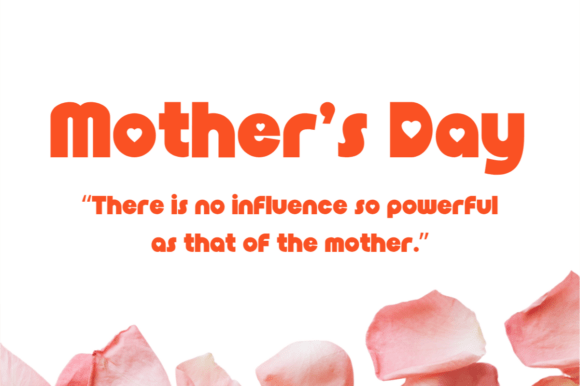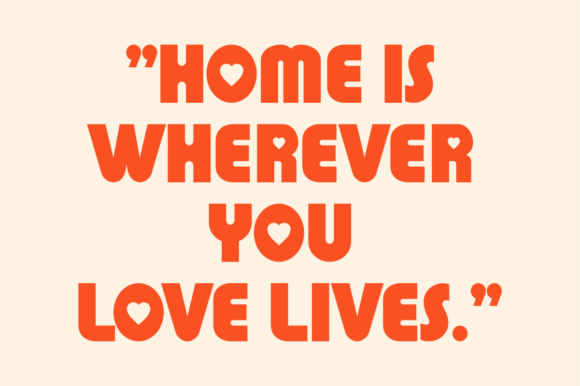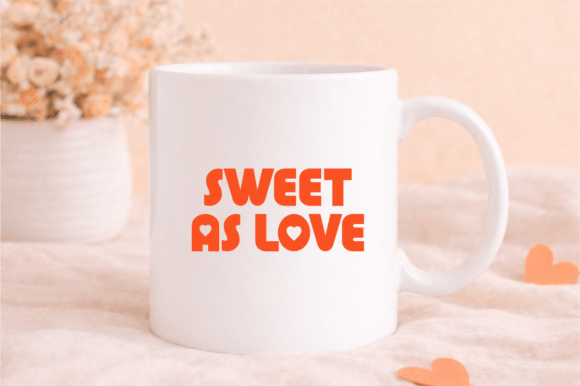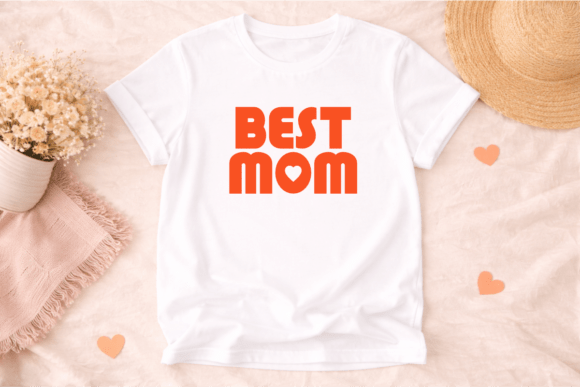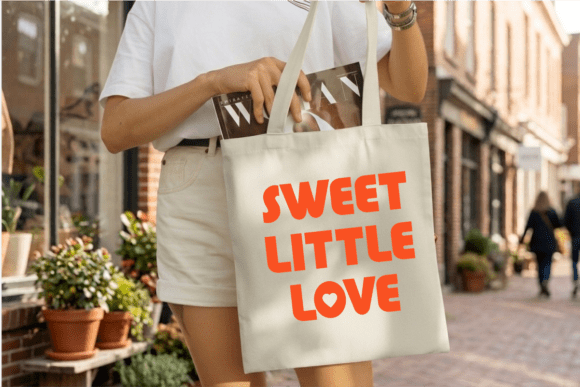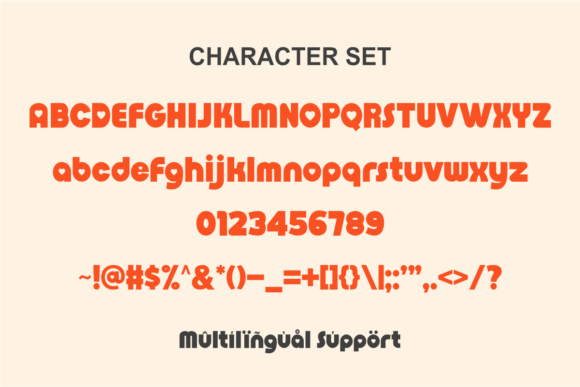
Introduction to Mother Cupcake Font
Meet Mother Cupcake: a vivacious display font with a sugary spin, meticulously crafted to inject your creations with a shot of warmth and affection.
With its singular heart-inspired accents and vibrant, bold character forms, itโs a seamless fit for all kinds of projects โ be it casual t-shirt prints and cuisine-centric packaging, or heartfelt greeting cards commemorating lifeโs special moments The enchantment of its smooth curves and delightful shapes not only amplifies your designโs visual charisma but also enhances readability.
Key Features of Mother Cupcake Font
Why Choose Mother Cupcake Font?
Mother Cupcake Font offers exceptional quality and versatility, making it a valuable addition to your design toolkit. Whether you’re creating for personal projects or commercial use, Mother Cupcake Font delivers professional results.